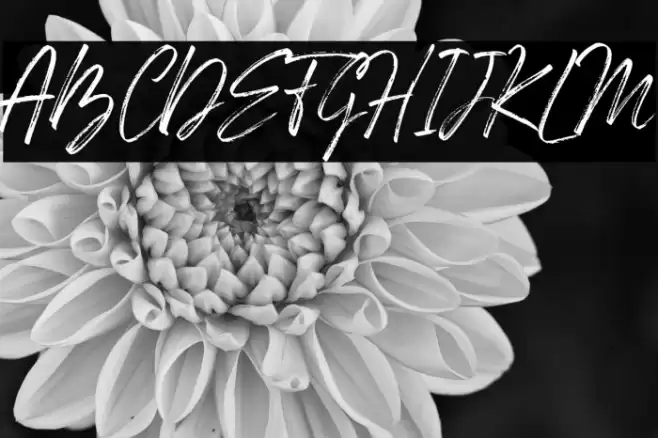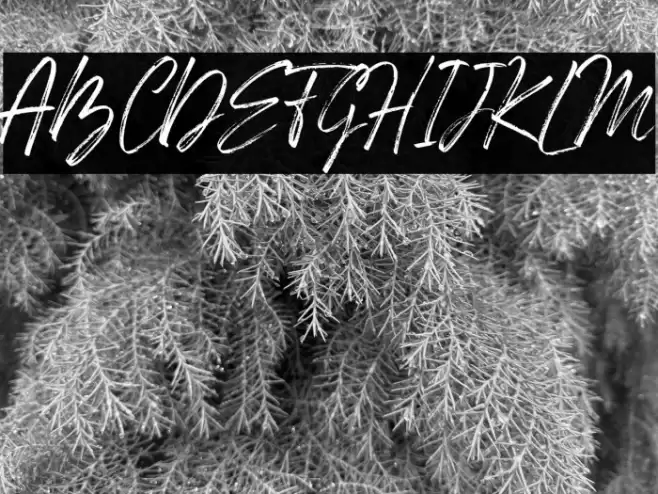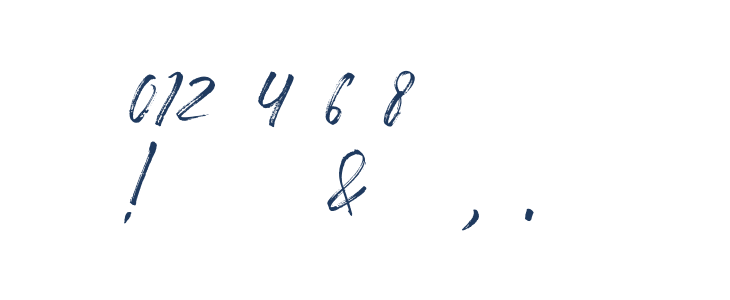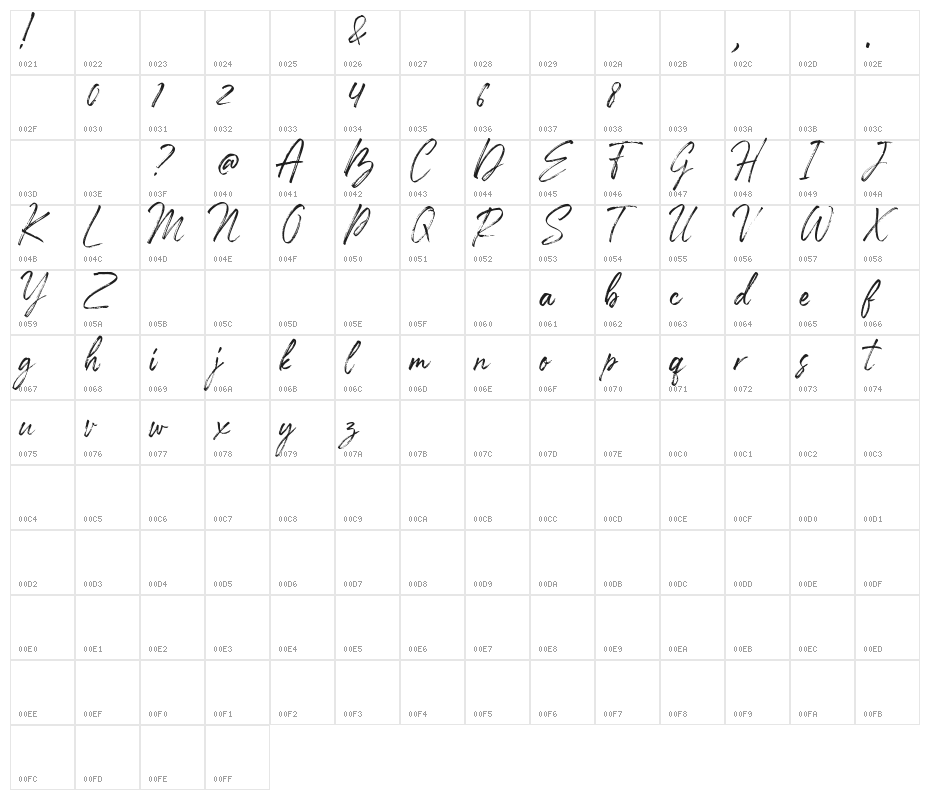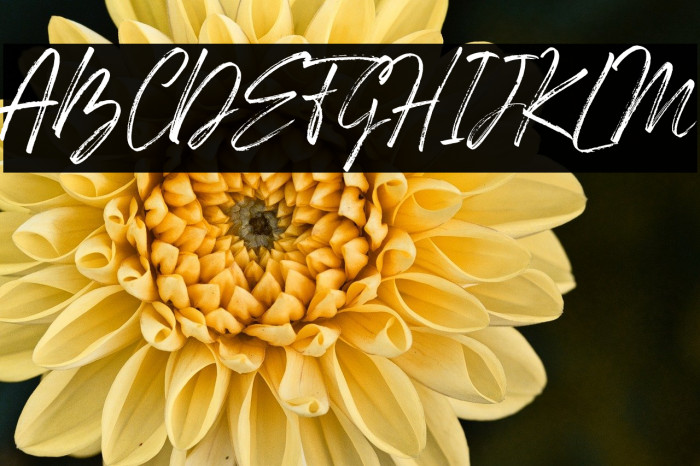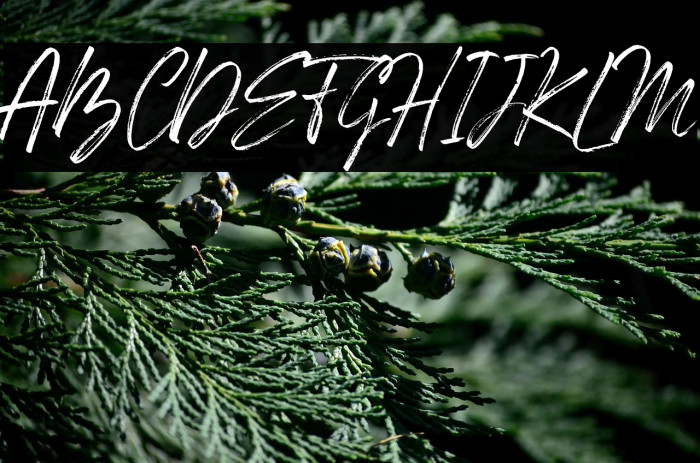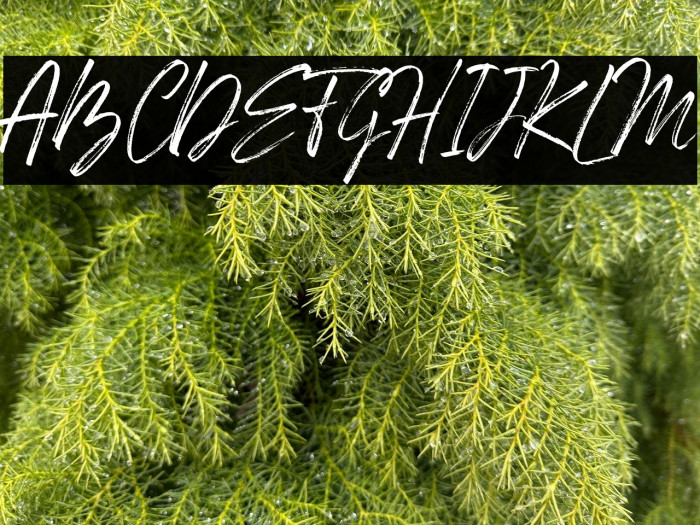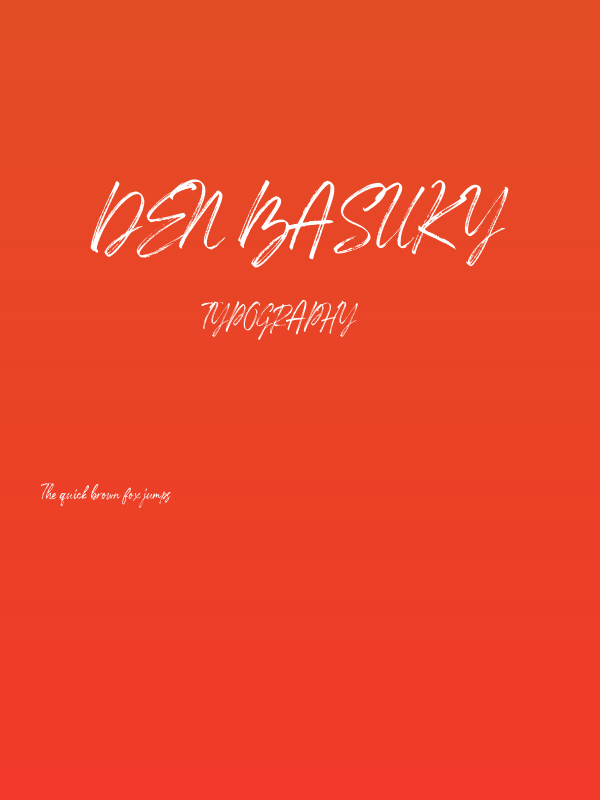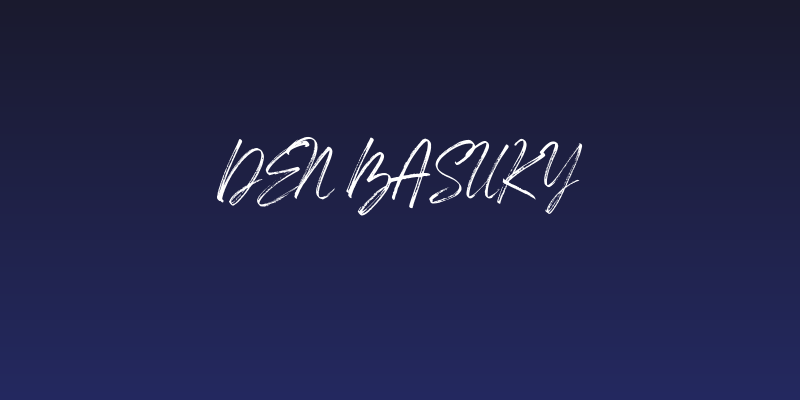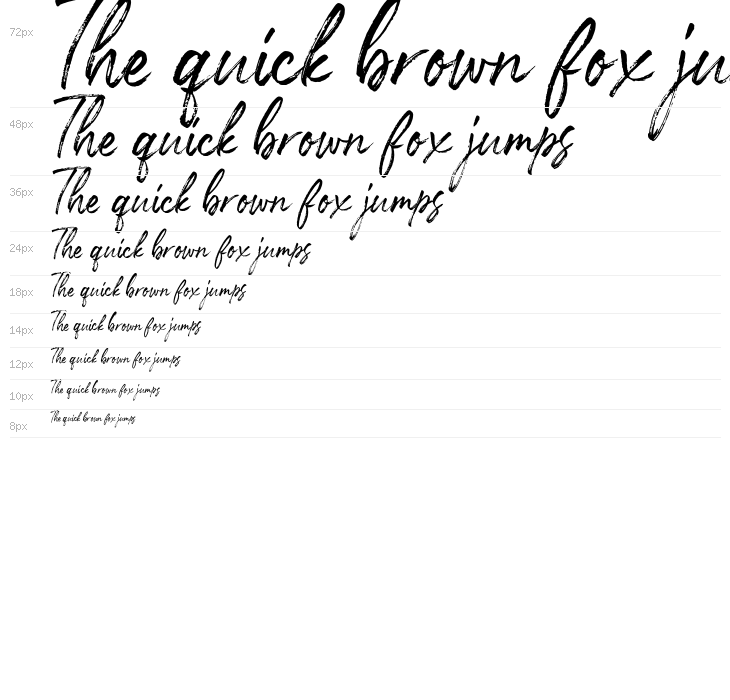
Den Basuky Font
Den Basuky Description
This font exhibits a dynamic and expressive handwritten style, characterized by its fluid and cursive letterforms. The strokes are bold and textured, giving a sense of movement and energy. The uppercase letters are tall and slightly slanted, while the lowercase letters maintain a consistent flow with varying stroke widths. The numbers and special characters follow the same energetic style, adding to the overall cohesive appearance. This font's artistic flair makes it suitable for creative and informal applications.
A bold, textured handwritten font with dynamic and expressive strokes from Uncategorized fonts.
- Proposed Projects: Ideal for creative projects such as greeting cards, invitations, posters, and branding materials that require a personal and artistic touch.